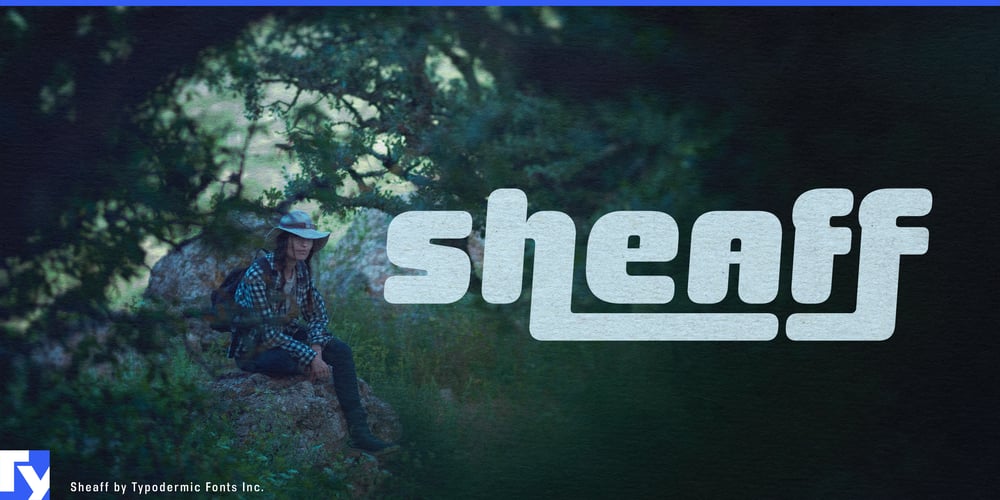
Sheaff Font Family was designed by Ray Larabie and published by Typodermic. Sheaff contains 1 styles and family package options. Step into a world where letters flow like liquid polymer with Sheaff, the display typeface that’s revolutionizing design one character at a time. This cutting-edge font fuses the interlocking allure of 1970s aesthetics with the sleek, malleable forms reminiscent of turn-of-the-millennium plastics—creating a typeface that’s as flexible as it is unforgettable.Sheaff’s characters aren’t just letters; they’re a symphony of interconnected forms. When certain letterforms meet, they meld seamlessly, creating intricate interlocks that captivate the eye and ignite the imagination. Activate your application’s “standard ligatures” feature to witness this typographic chemistry in action—it’s like watching molecules bond before your very eyes.With its svelte curves and playful geometry, Sheaff injects a shot of sophistication into any project. This unicase marvel adapts effortlessly to diverse applications, from sleek corporate identities to avant-garde editorial layouts. It’s the perfect choice for designers looking to make a statement that’s both bold and refined. Sheaff’s linguistic versatility is equally impressive. It fluently expresses itself across a vast spectrum of Latin-based European writing systems, effortlessly bridging cultural divides from Afaan Oromo to Zuni. This typeface doesn’t just communicate—it connects, molding your message into a form that resonates across borders.Don’t let your designs get stuck in a rigid mold. Choose Sheaff and watch as your typography transforms into a dynamic, fluid expression of creativity. Embrace the plasticity of Sheaff and mold the future of typography today.